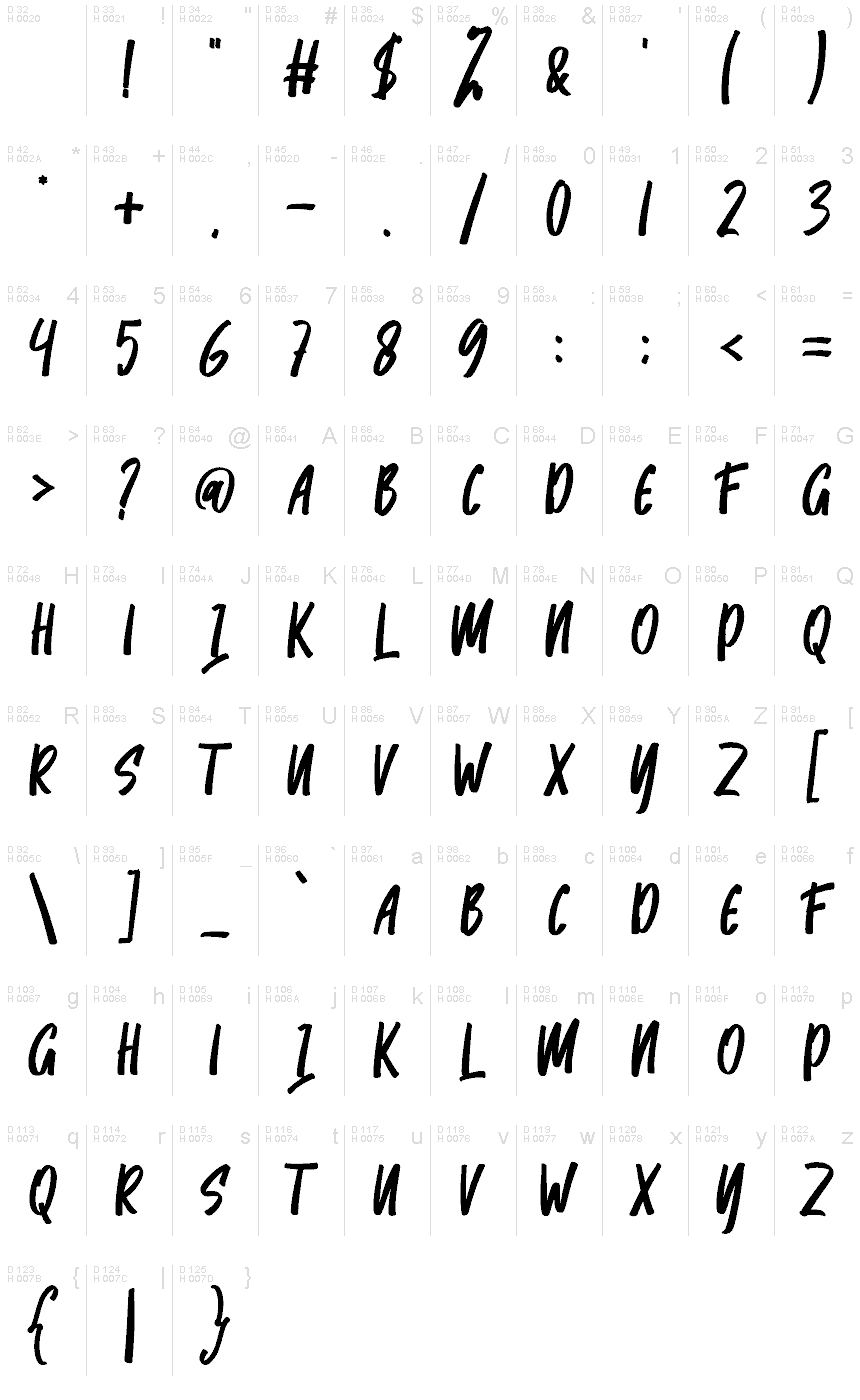
Samire
Samire font by Skiiller Studio is a free brush font with an expressive and energetic appearance. Featuring a condensed hand-written design, it has a casual flair that attracts attention in any branding or labelling project.
Rise above the competition in streetwear design, merchandise designing, product packaging, invitations, book covers and titles, album covers, and posters. Use it on social media posts and create stunning urban-themed music videos.